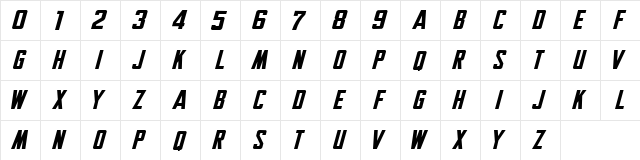
NHL Calgary Regular
Design Context for NHL Calgary Typeface
NHL Calgary is a composed and adaptable typeface that performs quietly and consistently across a wide range of design contexts.